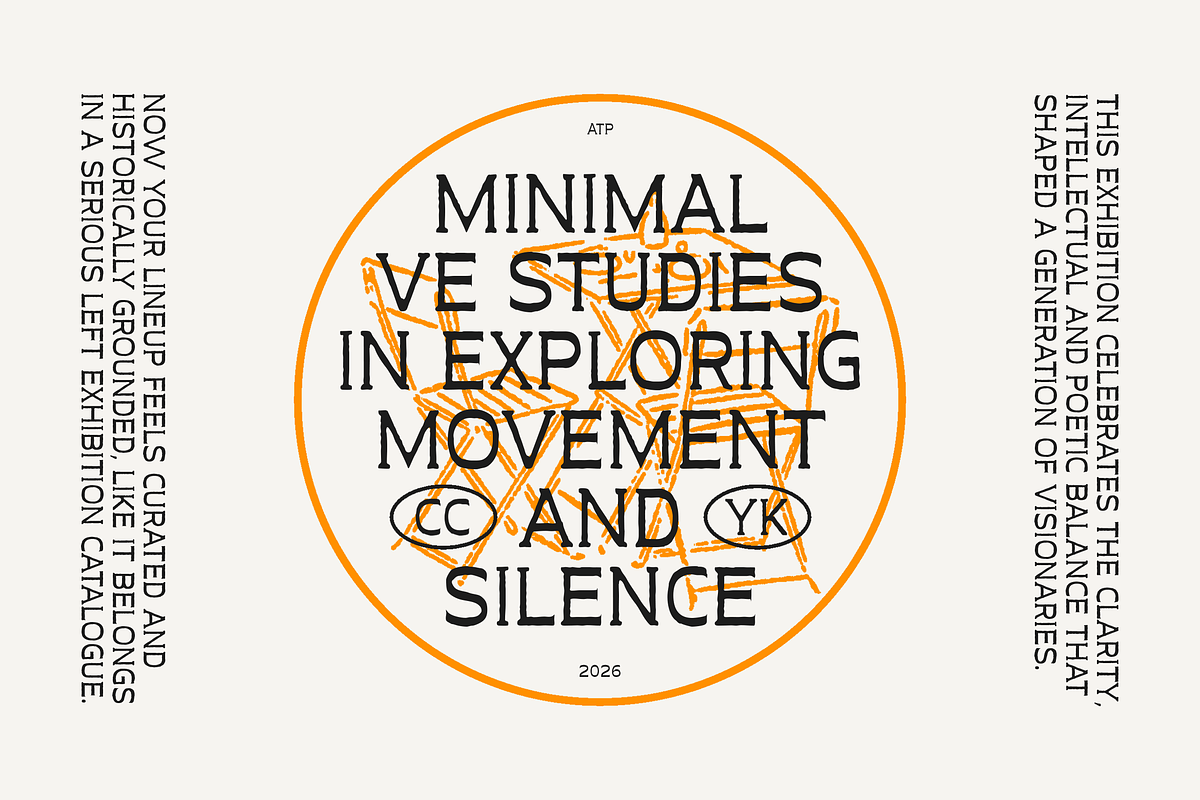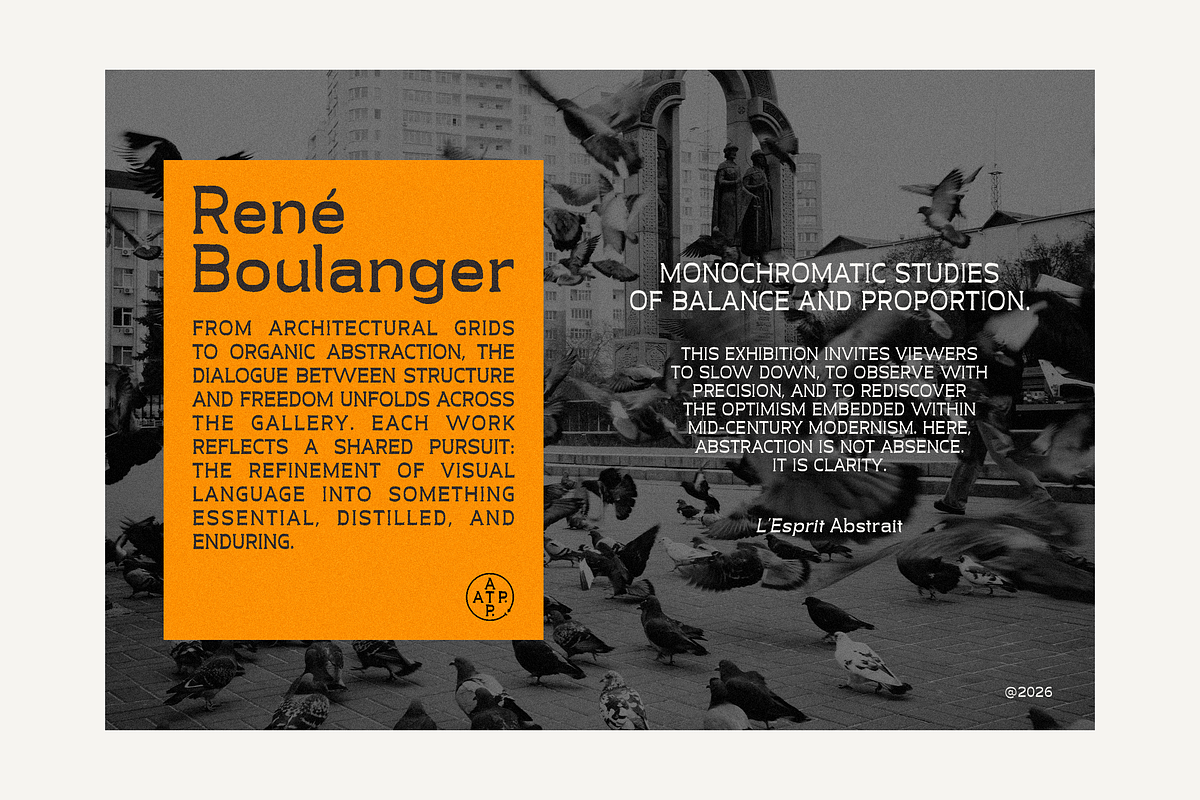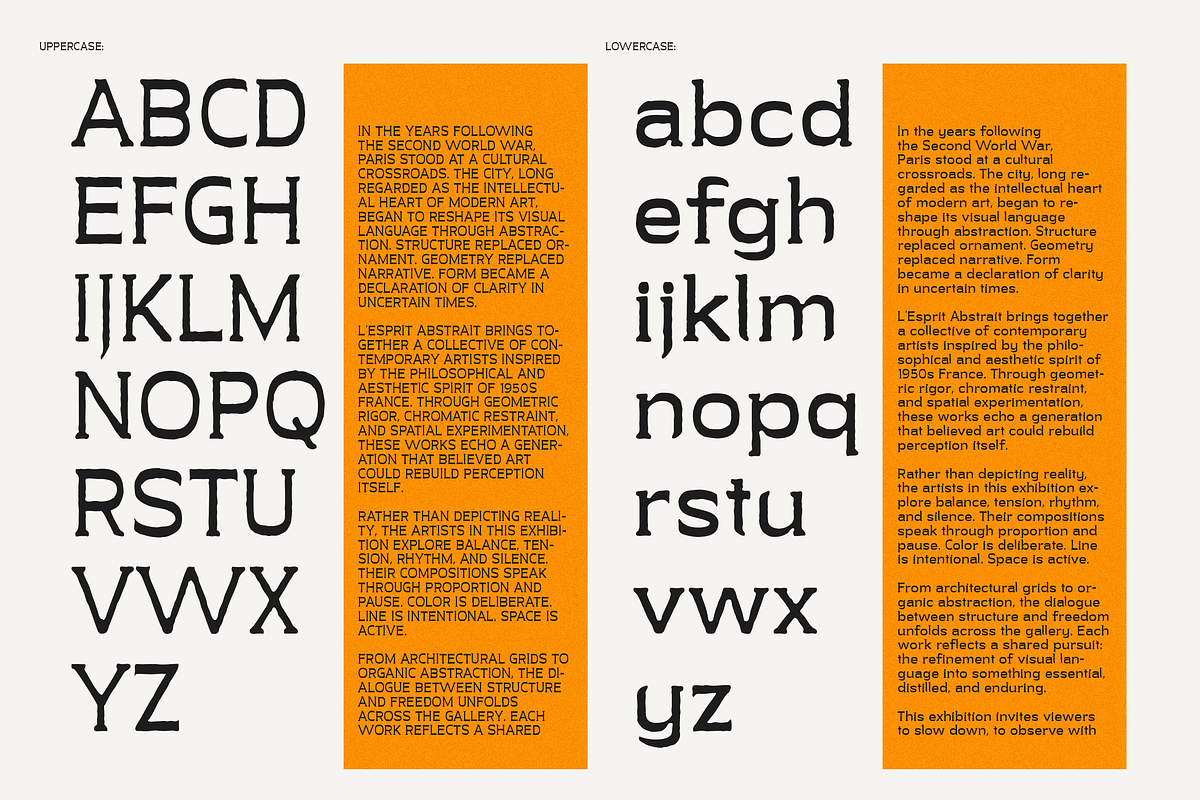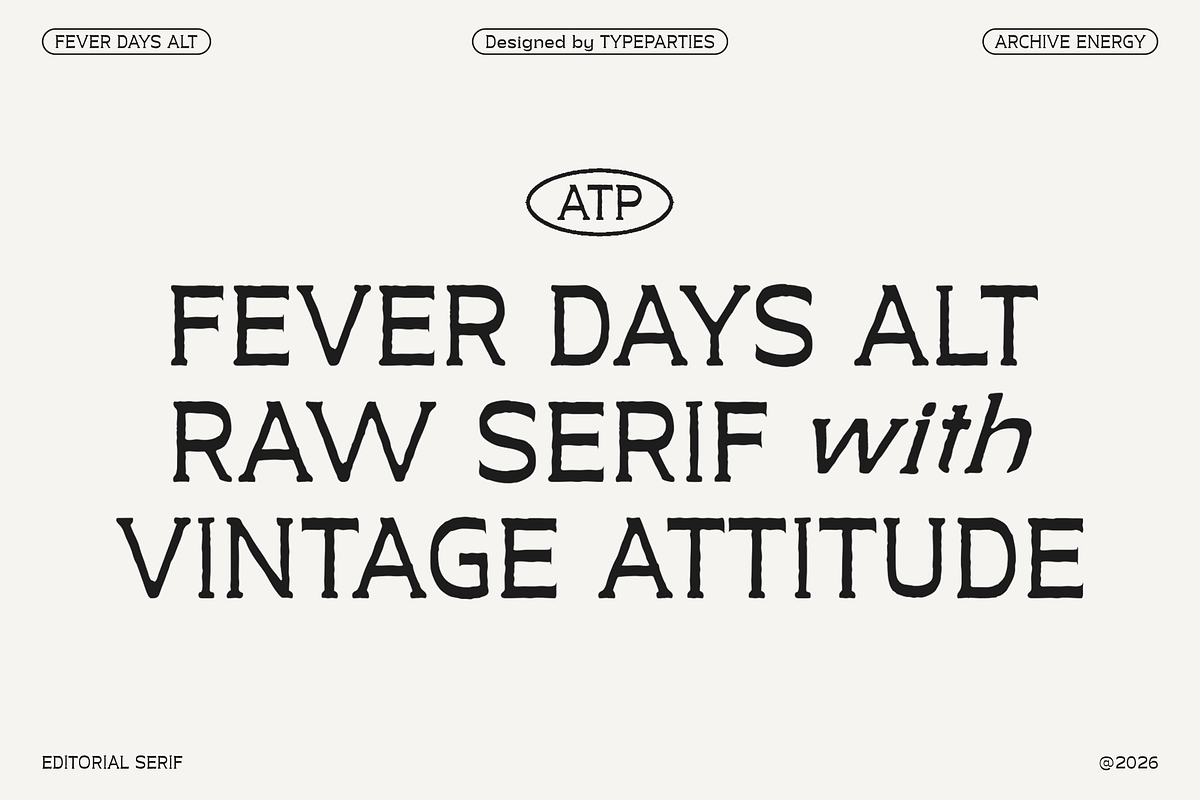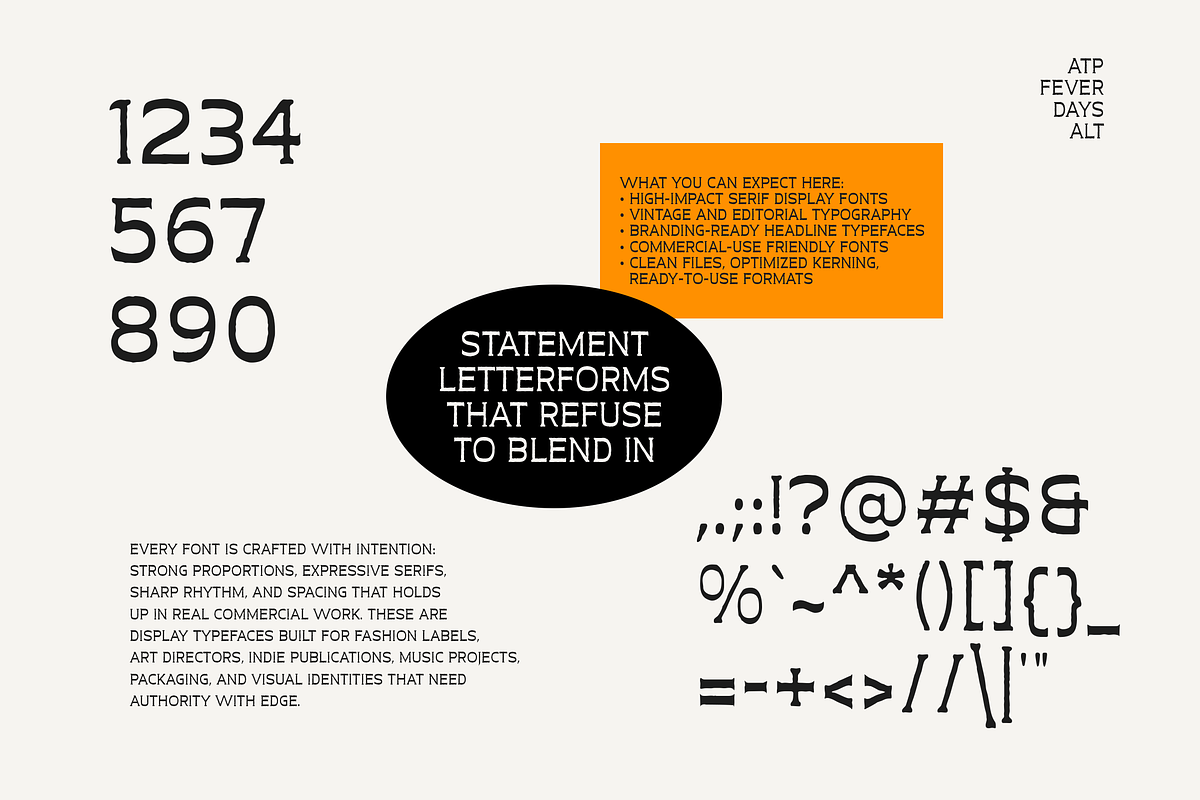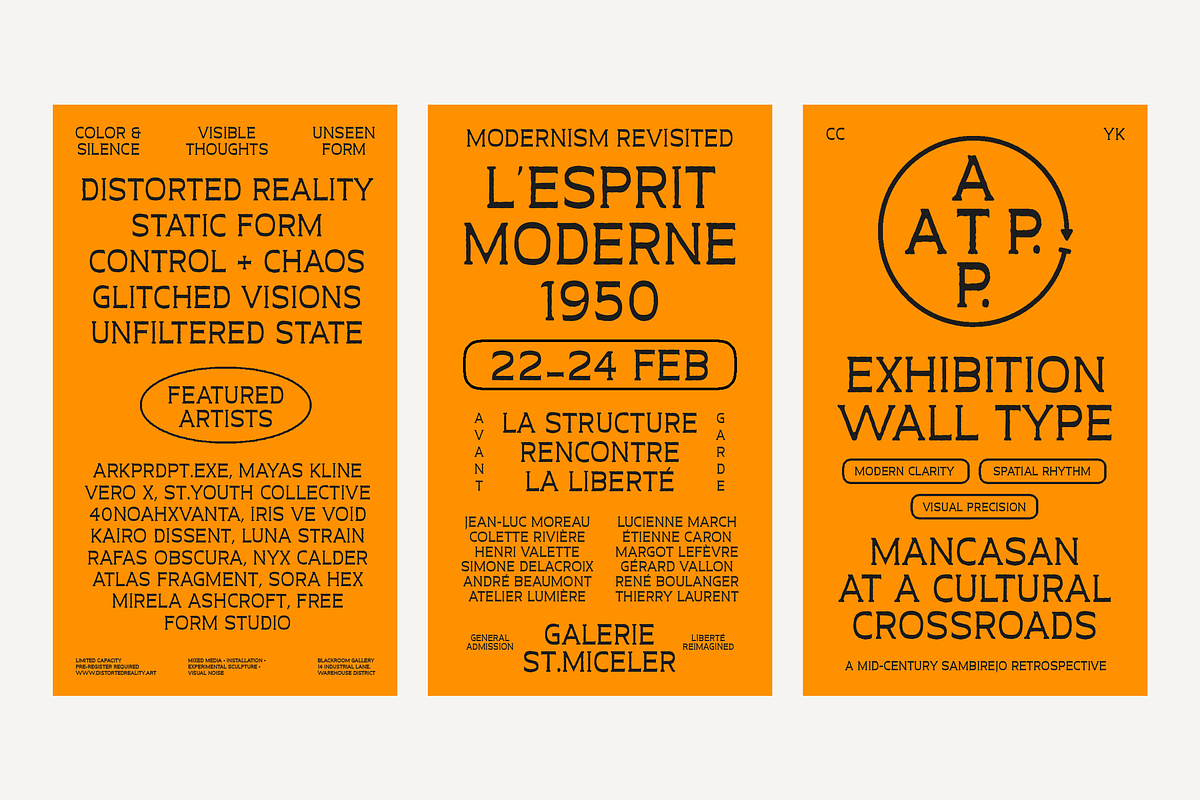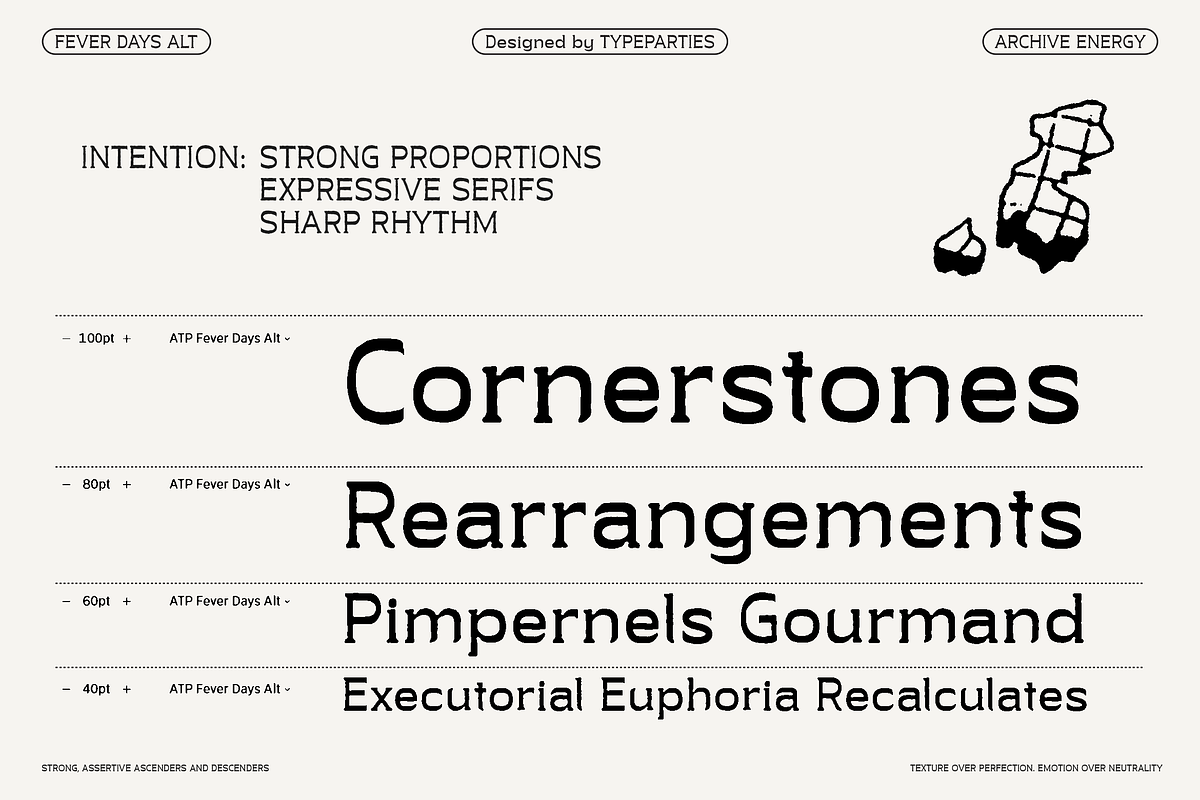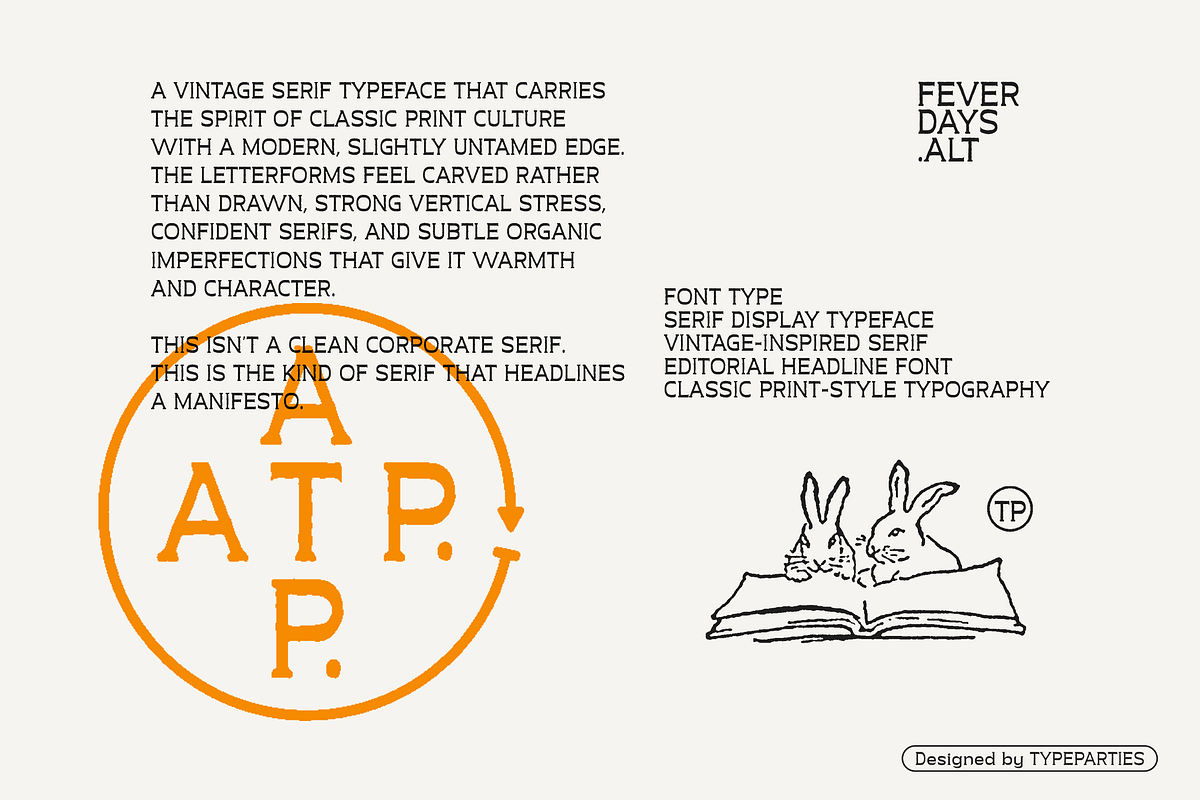
Fever Days Alt - Raw Serif Font
FEVER DAYS ALT is a bold serif typeface that carries the spirit of classic print culture with a modern, slightly untamed edge. The letterforms feel carved rather than drawn — strong vertical stress, confident serifs, and subtle organic imperfections that give it warmth and character.
This isn’t a clean corporate serif. This is the kind of serif that headlines a manifesto.